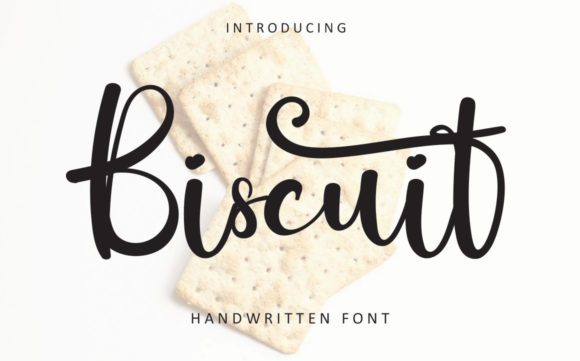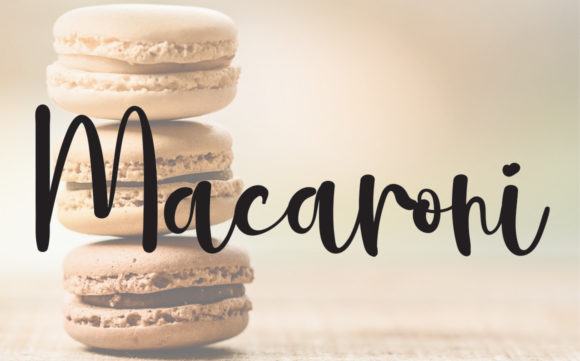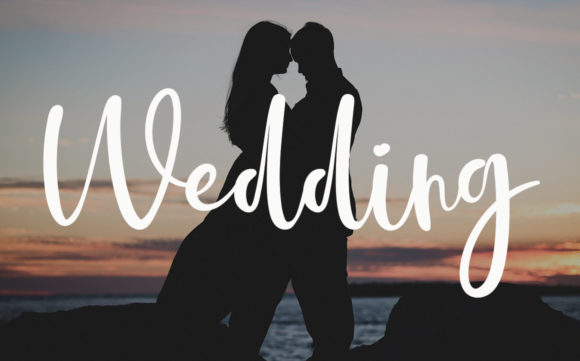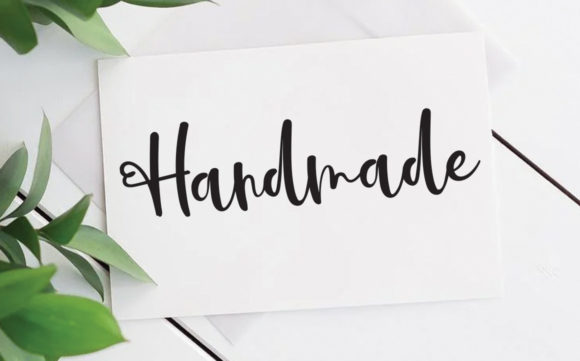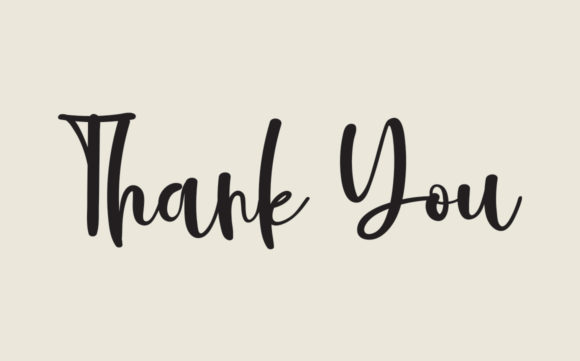
Biscuit Font
About Biscuit Font
Biscuit is an exquisite and gracefully crafted handwritten font that effortlessly lends its charm to a myriad of design applications. This elegant typeface is ideal for a wide range of creative projects, including wall displays, wedding invitations, logos for social media posts, eye-catching advertisements, captivating product packaging, innovative product designs, labels that demand attention, professional photography, subtle watermarks that enhance your brand identity, and invitations that leave a lasting impression on recipients. Its versatility extends to stationery, ensuring a distinctive touch to your correspondence.
The fluid strokes and aesthetic appeal of Biscuit make it a perfect choice for projects where impressive typography is a priority. Whether you’re looking to create a visually stunning wall display, evoke a sense of romance in wedding invitations, establish a strong brand presence on social media with a distinctive logo, or design attention-grabbing advertisements, Biscuit’s graceful curves and stylish demeanor are sure to elevate your content.
Moreover, when it comes to product packaging and design, Biscuit adds a touch of sophistication and uniqueness that sets your products apart on the shelf. Its versatility shines through in label designs, enhancing the overall visual identity of your products. Biscuit’s ability to seamlessly integrate into various design contexts makes it a valuable asset for photographers seeking a font that complements their work, adding a touch of elegance to watermarks.
The font’s aesthetic excellence is not limited to physical materials; it extends to digital platforms as well. Whether you’re creating invitations for virtual events or designing captivating social media posts, Biscuit ensures a polished and visually appealing presentation.
In summary, Biscuit’s versatility and beauty make it an excellent choice for anyone seeking to enhance their projects with impressive and captivating typography. Its flowing handwritten style adds a touch of elegance to a wide array of design endeavors, making it a valuable asset for creative professionals across different industries.